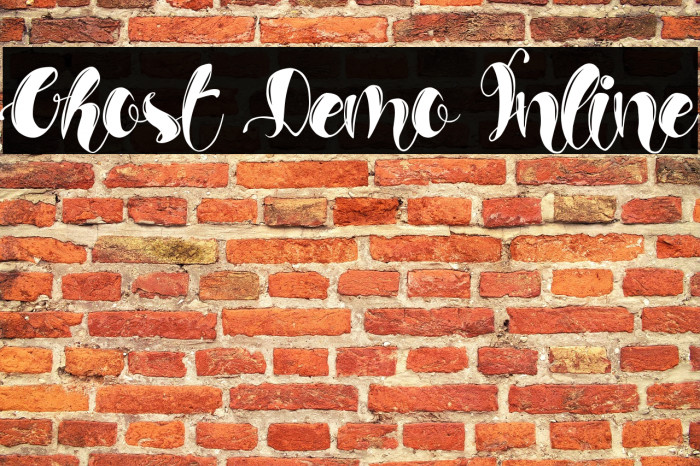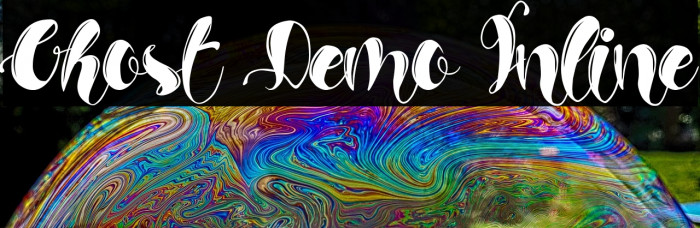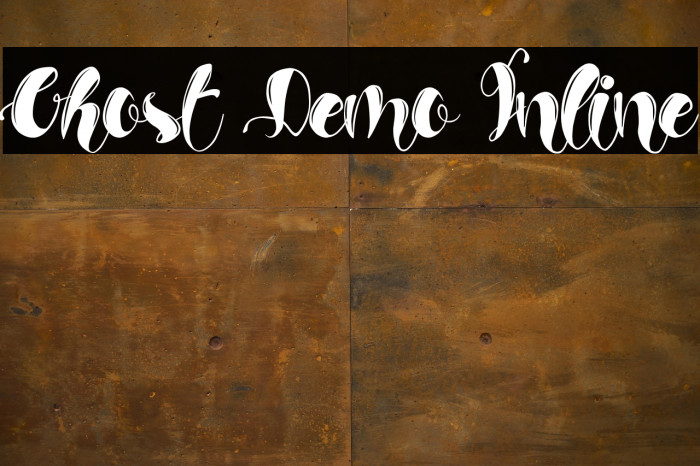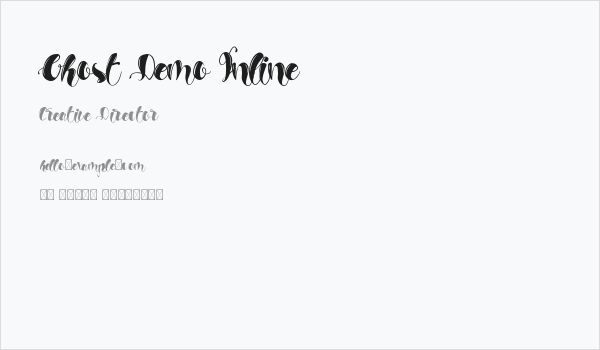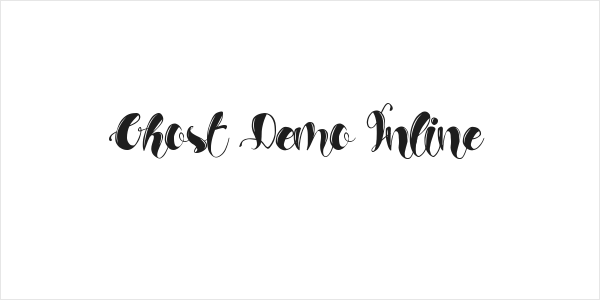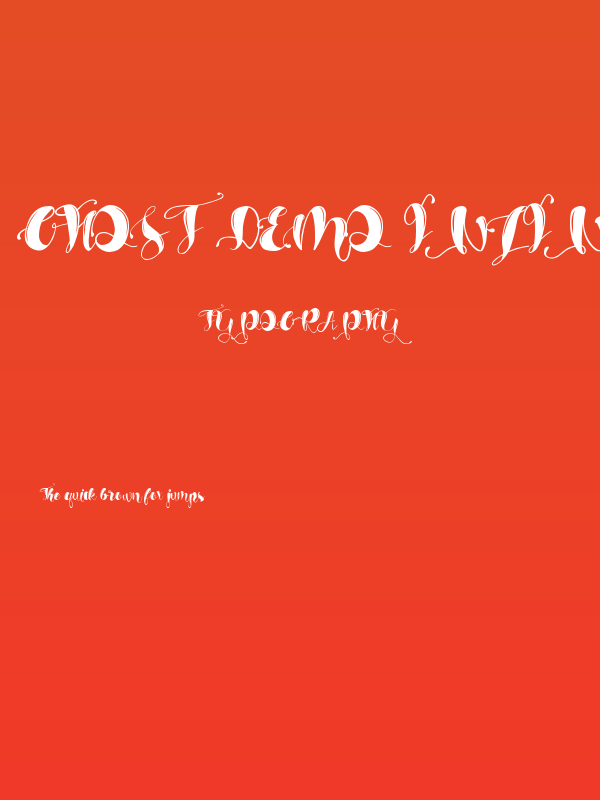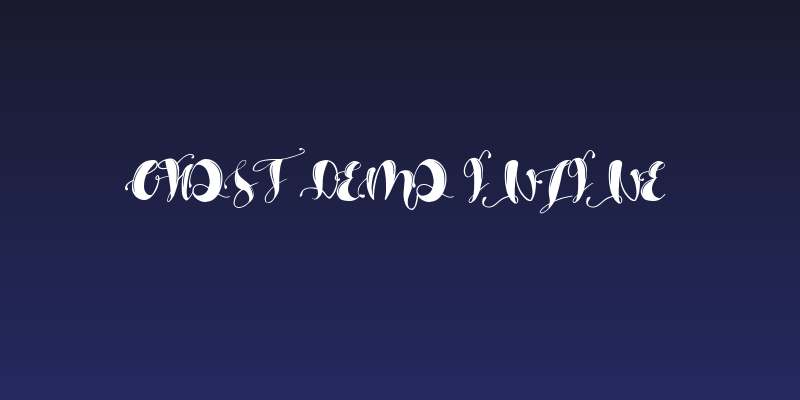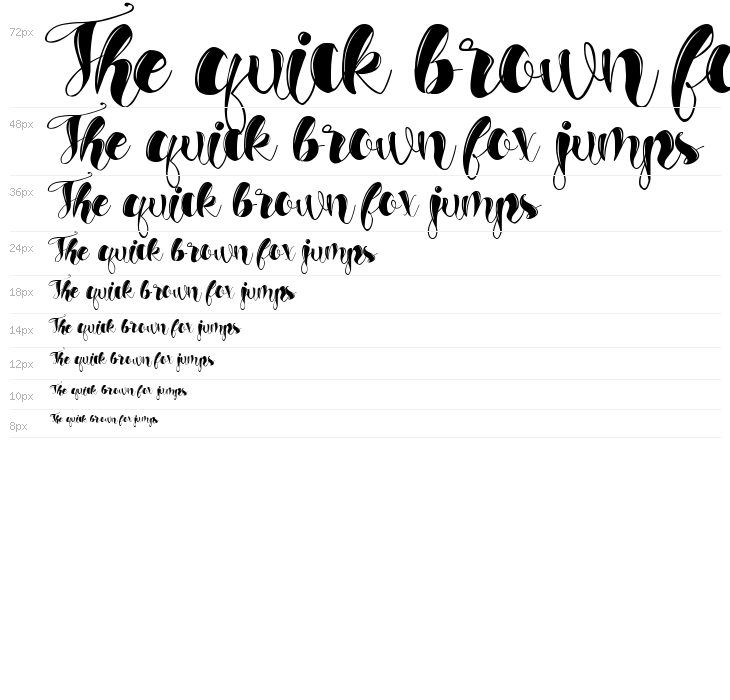
Ghost Demo Inline Font
Ghost Demo Inline Description
This font exhibits a highly decorative and artistic style, characterized by its flowing, cursive script that mimics elegant handwriting. The letters are interconnected with sweeping, exaggerated flourishes and loops, creating a sense of movement and fluidity. The strokes vary in thickness, adding a dynamic contrast that enhances its visual appeal. The uppercase letters are particularly ornate, with intricate swirls and embellishments that give each character a unique personality. The lowercase letters maintain a consistent style, complementing the uppercase with their own graceful curves. This font is ideal for projects that require a touch of sophistication and creativity, such as invitations, branding, and artistic designs.
| Use Case | Logos, Invitations, Artistic Designs |
| Proposed Projects | Ideal for wedding invitations, branding, logos, and artistic design projects. |